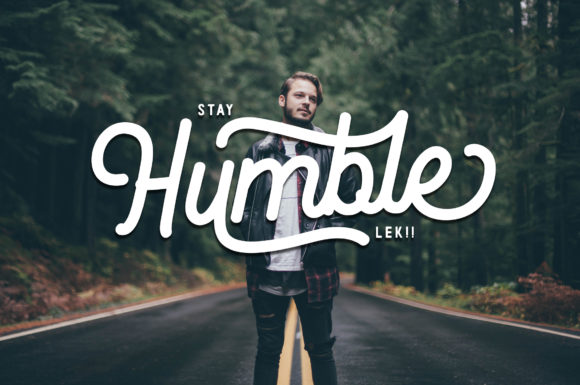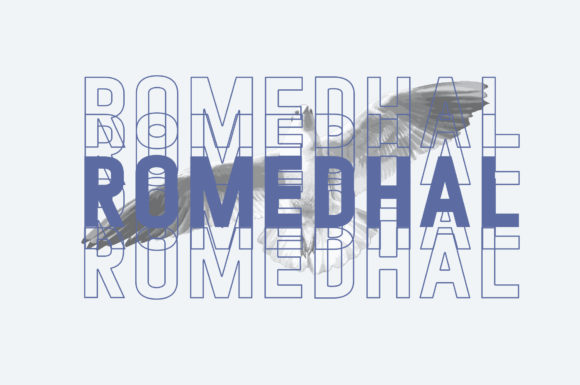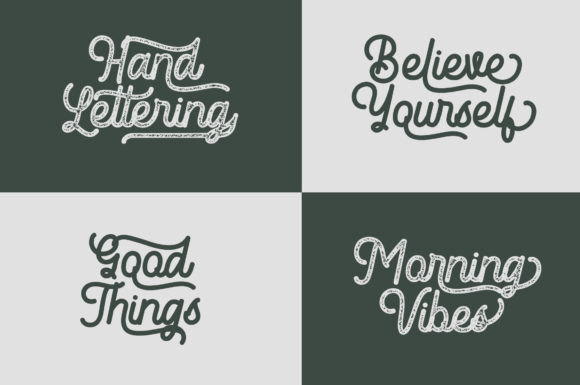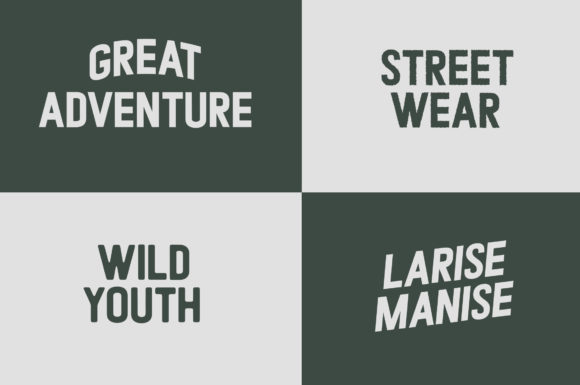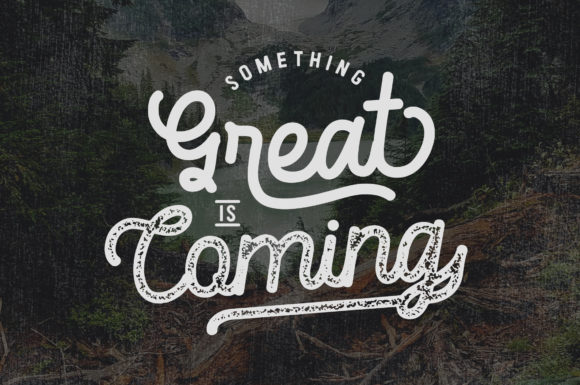
Romedhal Font
About Romedhal Font
Romedhal is a lovely duo font (sans serif and script). It is daring and incredibly versatile, fitting a wide range of formal or informal designs. Add it confidently to your projects, and you will love the results.